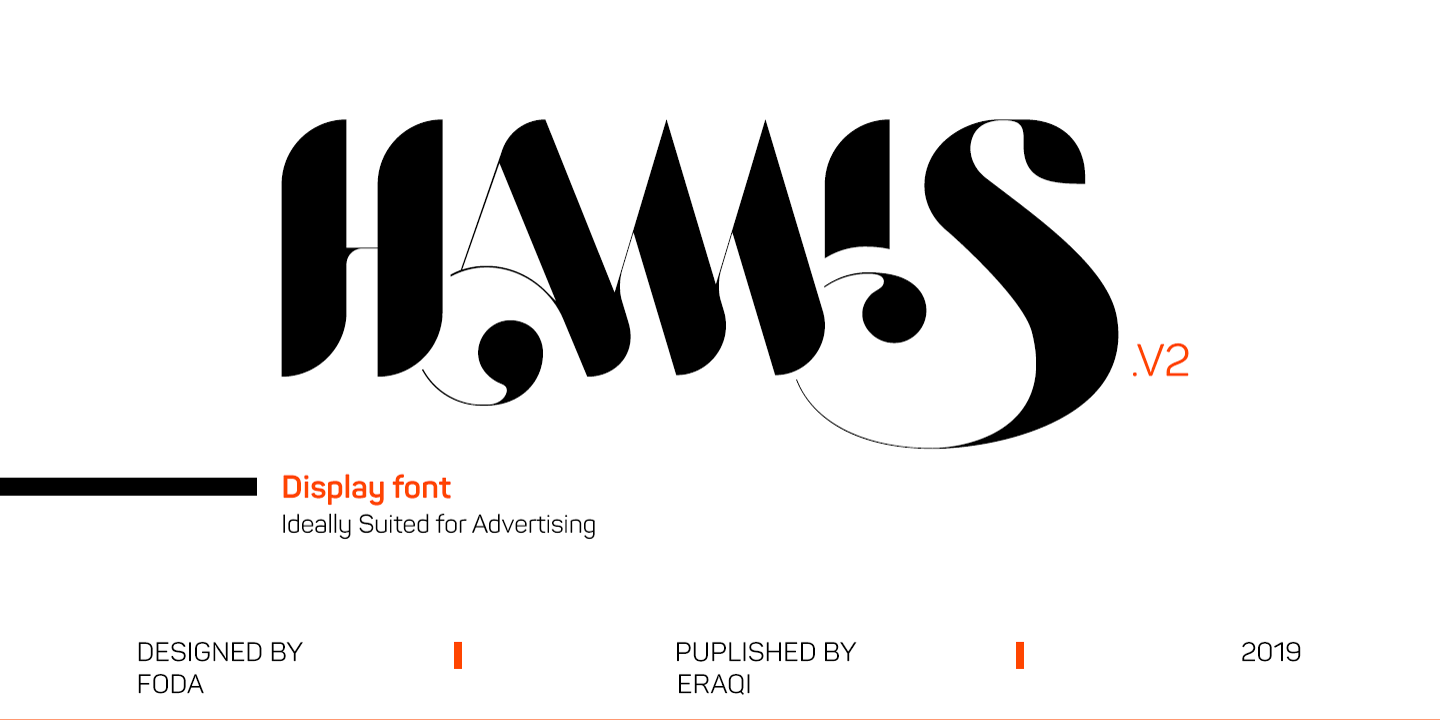
Hamis Vol 2 Font Free Download is a bold, expressive display typeface that blends urban edge with handcrafted character. Featuring unique letterforms, sharp details, and a modern graffiti-inspired vibe, Hamis Vol 2 Font is perfect for posters, streetwear branding, album covers, event flyers, packaging, and bold social media graphics. Its dynamic and rebellious aesthetic makes it ideal for projects that aim to stand out with attitude and creativity.
Whether you're crafting urban-inspired logos, edgy promotional materials, or artistic merchandise, Hamis Vol 2 Font delivers boldness and personality. Its combination of raw energy and artistic flair ensures your message captures attention across both print and digital media.